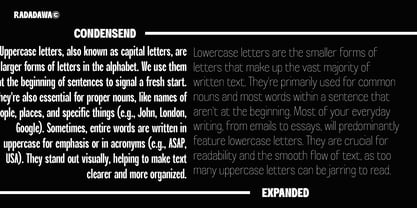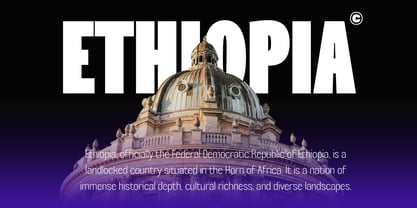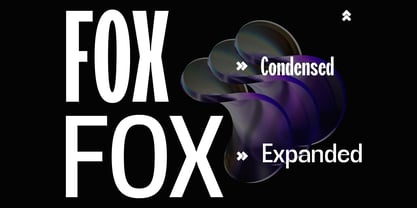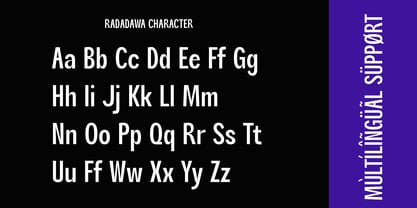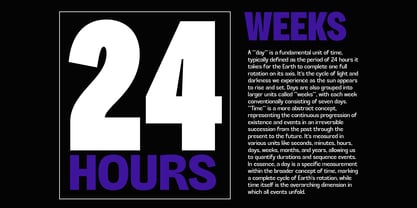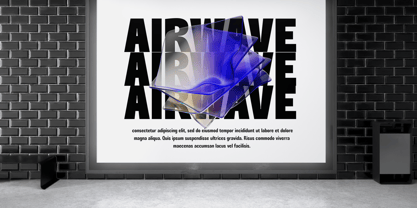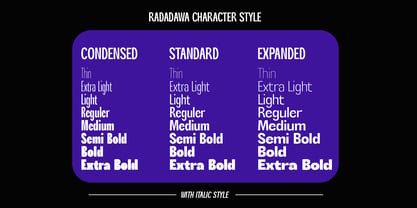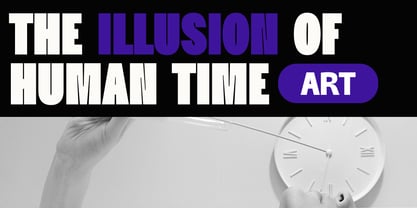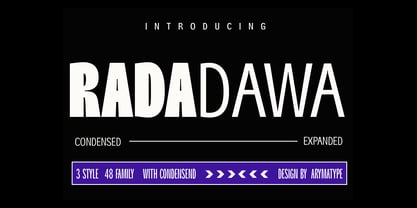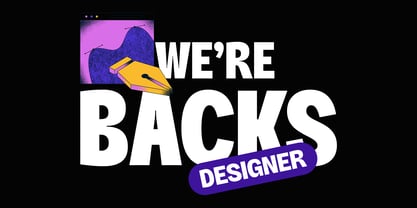
Radadawa
by ArimaType
The Radadawa Font Family was designed by Amri Mauludin and published by ArimaType. Radadawa contains 48 styles and family package options. More about this family
Radadawa is a modern sans serif type family that offers three distinctive styles: Condensed, Regular, and Expanded. Crafted to meet a wide range of typographic demands, Radadawa seamlessly adapts to any visual language — whether you're aiming for a sleek, refined look or a bold, commanding statement.
Born from a desire to break free from limitations in typographic proportions, Radadawa invites designers to explore different moods within one unified family. From ultra-thin, minimalist captions to striking, oversized headlines, each weight and width brings its own unique voice while maintaining cohesive character.
Its balanced geometry, elegant curves, and contemporary sensibility make Radadawa an essential asset for projects that require both versatility and presence. Perfectly suited for editorials, document layouts, entertainment media, posters, branding, and digital content, this typeface doesn’t just fill space — it elevates it.
Discover how Radadawa can shape your message and amplify your visual narrative.